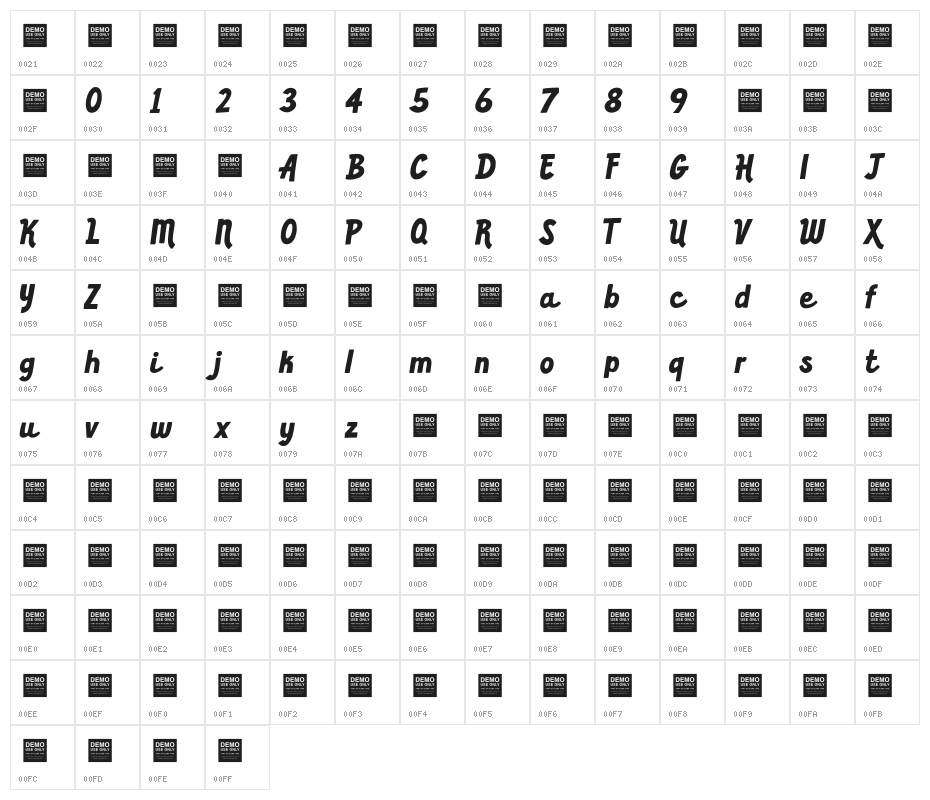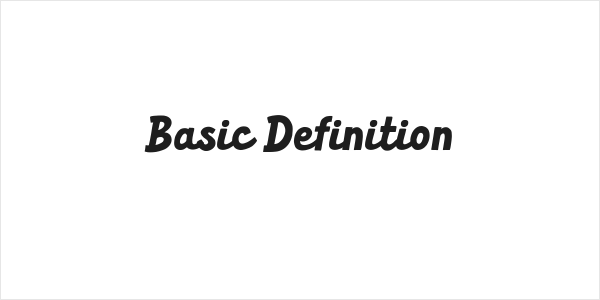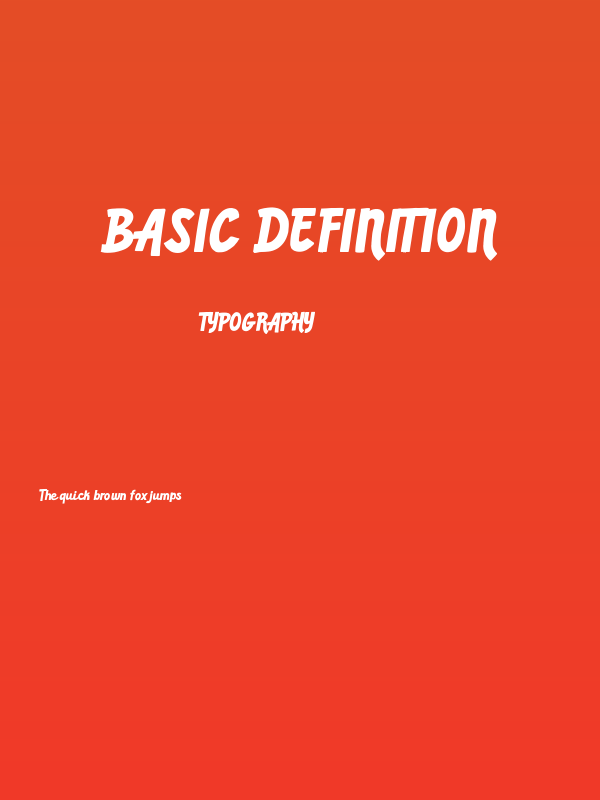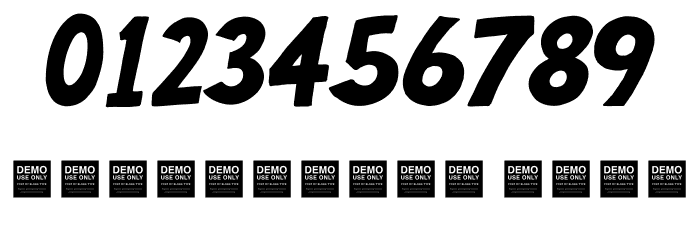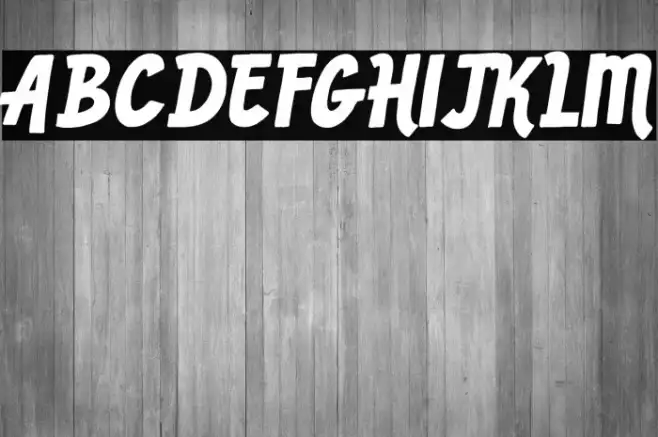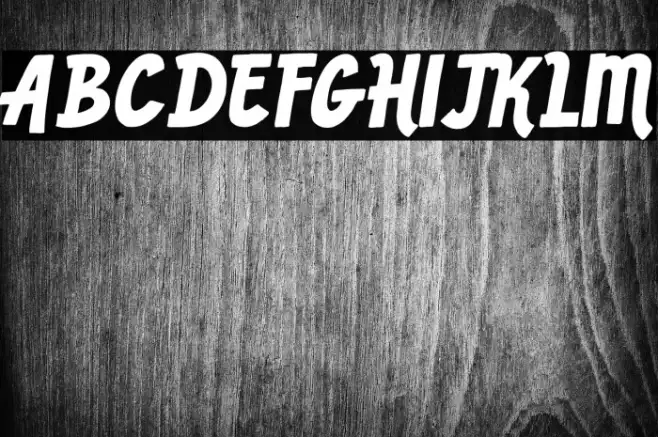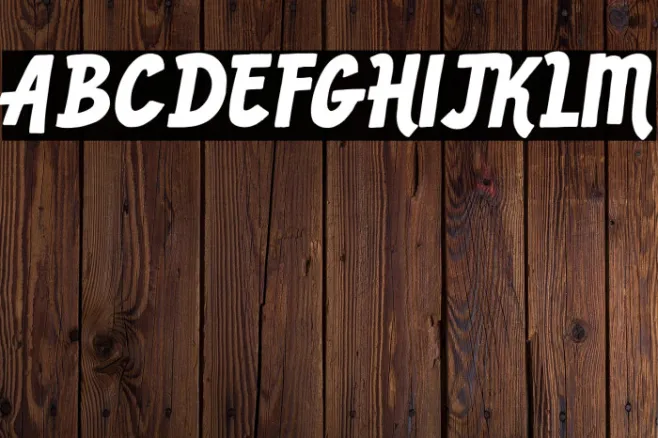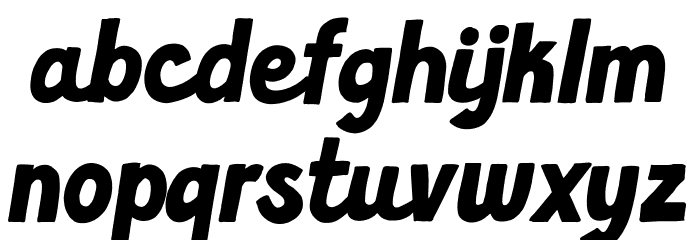
Basic Definition Font
Basic Definition Description
This font features a bold and dynamic style with a strong presence, characterized by its thick strokes and slightly slanted characters. The uppercase letters are robust and commanding, while the lowercase letters maintain a consistent flow, adding a touch of elegance. The numerals are clear and legible, making them suitable for various applications. The font's overall appearance is both modern and slightly retro, with a playful yet professional vibe. Its unique style makes it stand out, suitable for eye-catching designs.
| Proposed Projects | Ideal for branding, posters, headlines, and advertising materials that require a strong visual impact. |